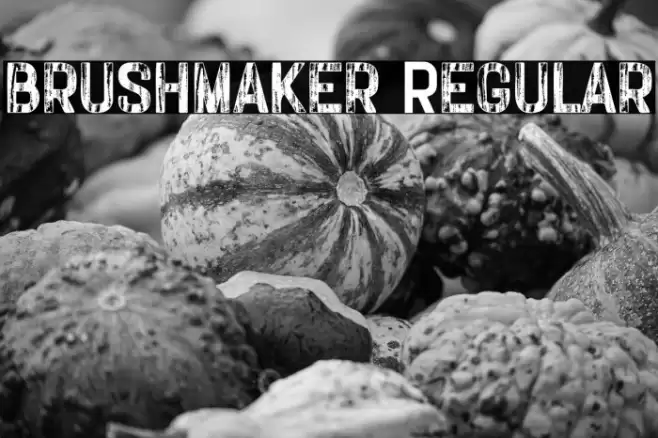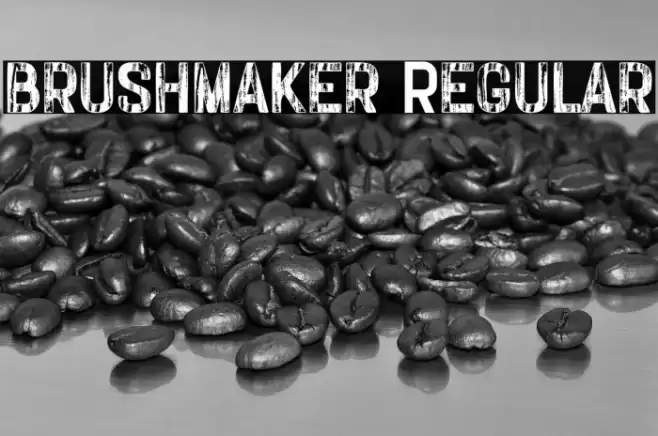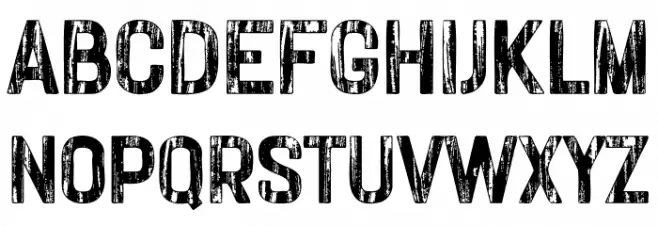
brushmaker Regular Font
brushmaker Regular Description
This font features a bold, impactful design with a distressed texture that gives it a rugged, handcrafted appearance. The uppercase letters are strong and commanding, while the numbers and special characters maintain the same boldness and texture. The font's unique style is characterized by its rough edges and uneven surfaces, reminiscent of a brushstroke effect. This adds a dynamic and energetic feel, making it suitable for projects that require a bold statement or an artistic touch. The spacing between characters is normal, allowing for readability while maintaining its distinctive style.
A bold, distressed font with a rugged, handcrafted appearance from Uncategorized fonts.
- Proposed Projects: Ideal for posters, album covers, branding, and any design requiring a bold, artistic touch.
- Overall Style: Decorative